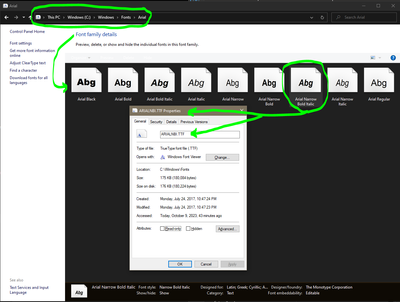
Setting text to Arial Baltic True Type font in lisp
Hello, we have a lisp routine that does some basic cleanup in drawings every time we open them.  Recently a change has some down that they want us using Arial Baltic true type font as the default font in our drawings.
In the past we've had these two commands in our startup file that made sure certain text styles were defined properly for our office standards:
(command "-style" "standard" "simplex.shx" "0" "1" "0" "n" "n" "n")
(command "-style" "architxt" "architxt.shx" "0" "1" "0" "n" "n" "n")
I tried adding the following line to the routine to get it to setup Arial font and assign the Arial Baltic font but it keeps crashing in the lisp, I'm guessing it's because it's a windows true type font and not an autocad shx font:
(command "-style" "arial" "Arial Baltic" "0" "1" "0" "n" "n" "n")
Any suggestions on what I need to change to get this to work in the startup lisp?
The actual TTF file is most likely not called that, why not go here C:\Windows\Fonts to find it, right-click to select PROPERTIES and see what the TTF file name is actually called, see if that helps.
For example
Turns out the Arial Baltic font is part of the same arial.ttf file that the arial font is part of.
So your answer was correct and means I'm kind of sunk at this time since it looks like what i want to do is not possible.
Turns out the Arial Baltic font is part of the same arial.ttf file that the arial font is part of....
I don't think that's how it works (but I do not have that sub-font): if you double-click on ARIAL you'll see the entire "family" that makes up ARIAL then you can use the same tip I suggested above to get the actual TTF font file name
I made a drawing file with just a piece of text in it set to the arial baltic font I was trying to use and saved it.  Then I did an etransmit on the file so that it would bind all the files together including the necessary fonts to make sure exactly which ttf file I needed and the arial.ttf was the one it bound with the etransmit.
So it would appear it has to be part of that same file based on that.
I will look around and see if I can find the arial baltic font as a stand alone ttf file online and see if that solves the problem eventually.  From the previews it looks like the only difference between the two is baltic has a little thinner lines than straight arial so I'm going to run with it and see if anyone notices for now.
For now it's creating an arial text style and setting it as the current text style every time I open an old drawing which is the most important thing for me.
Turns out the Arial Baltic font is part of the same arial.ttf file that the arial font is part of.
I have that font option.  When I create a Text Style using it:
and then check the font file used in that Style with (entget (tblobjname "style" "test")), it includes:
(3 . "arial.ttf")
exactly the same as in the "Standard" Style that uses plain Arial.
Comparing what they look like, stringing together all characters available on my keyboard:
The upper line is in a Style using plain Arial; the lower Arial Baltic -- I see no difference at all.
So I wonder what Arial Baltic is all about, why it exists, etc....